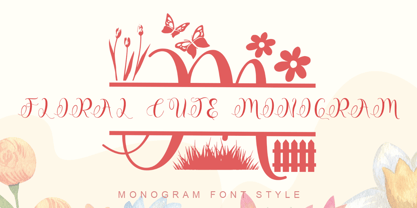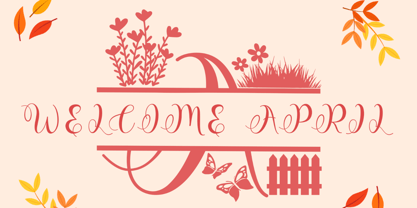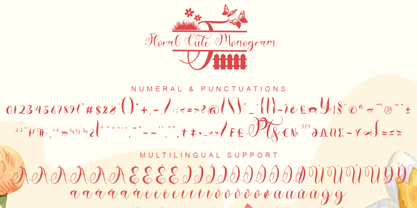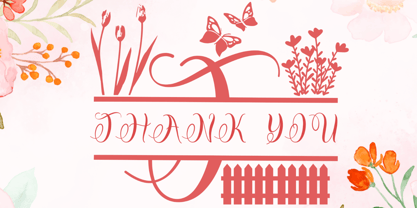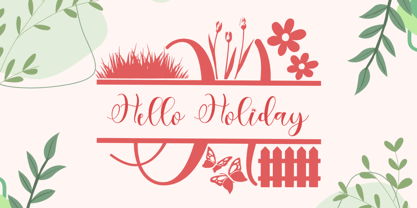
Cute Monogram Style
by Yoga Letter
The Cute Monogram Style Font Family was designed by Isroni Yoga Prasetya and published by Yoga Letter. Cute Monogram Style contains 2 styles and family package options.
"Floral Cute Monogram'' is a beautiful and unique monogram font. This font is equipped with monograms, uppercase, lowercase, numerals, punctuations and multilingual support. It is very suitable for use for spring, summer, easter, wedding, natural, invitations, print, stickers and others.